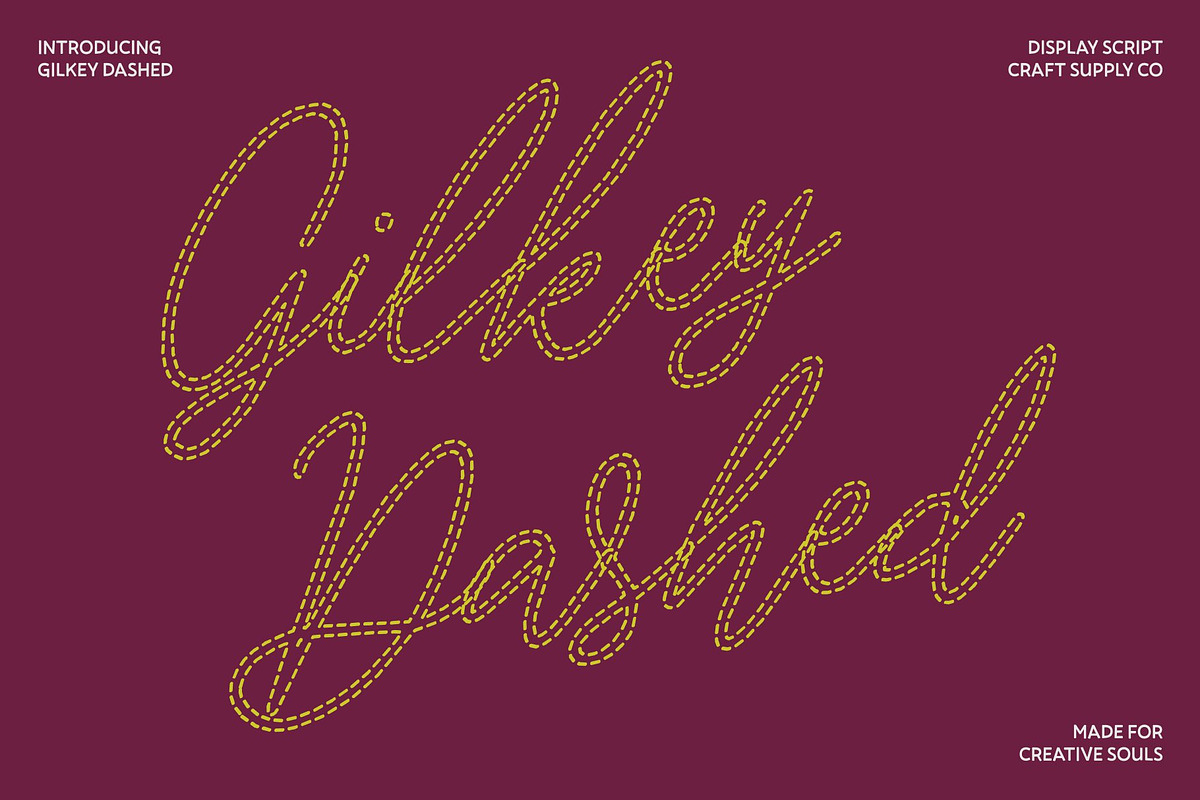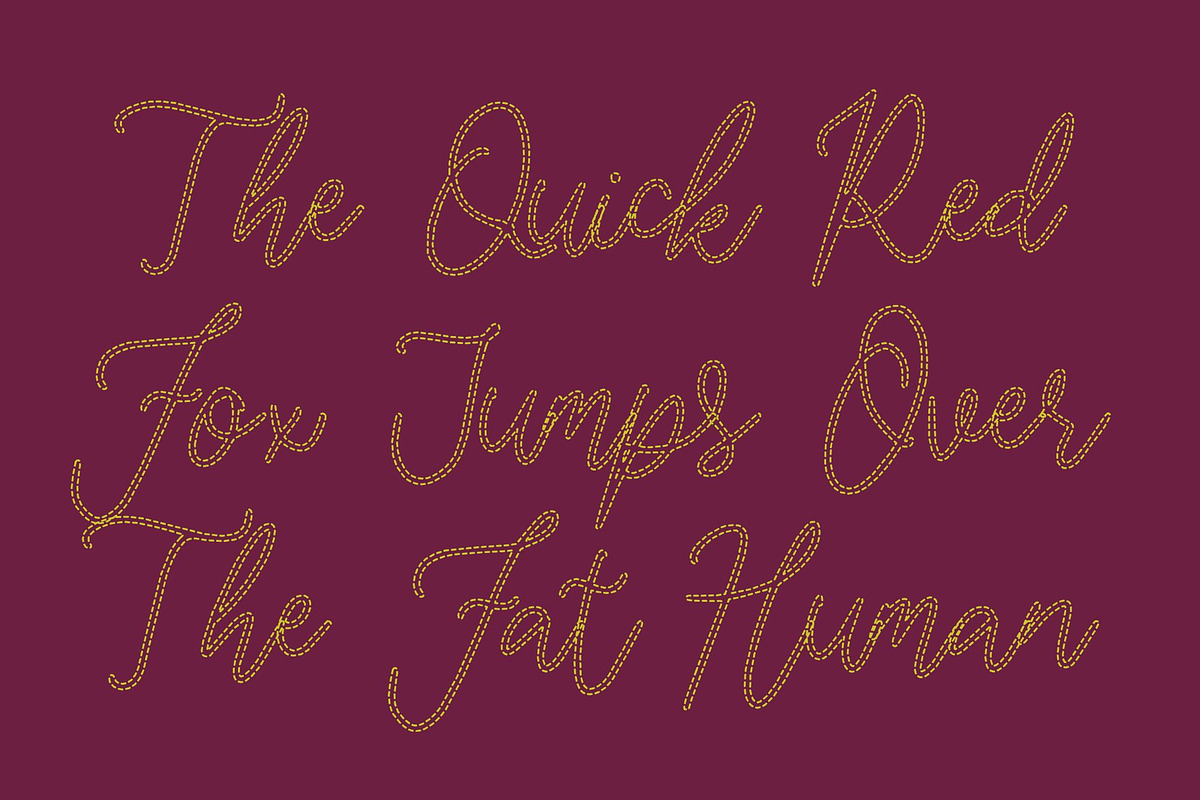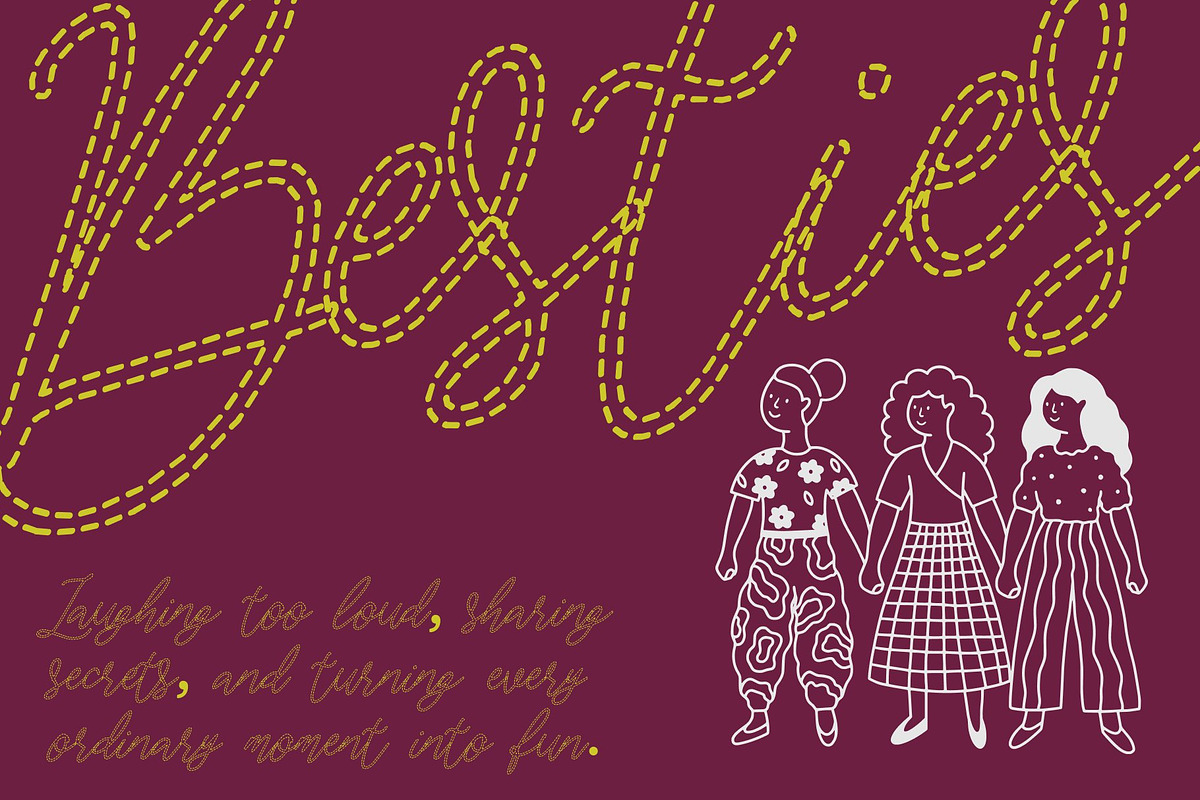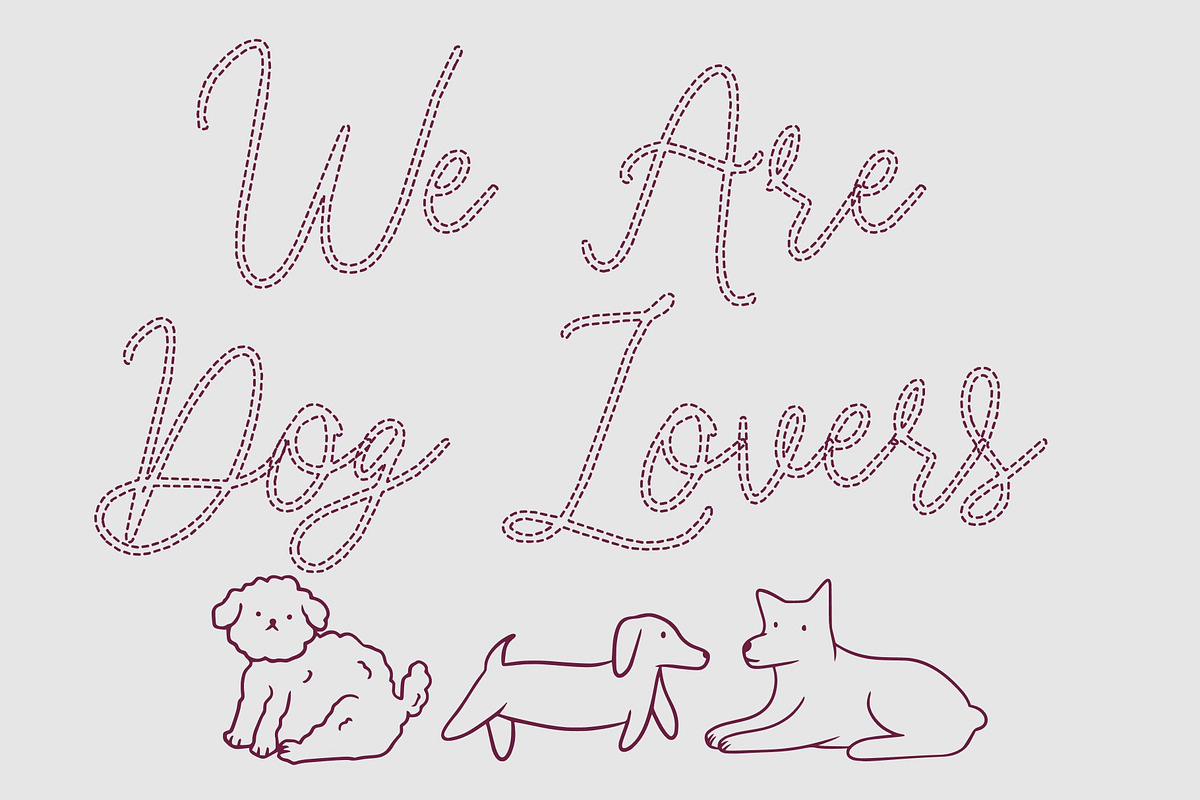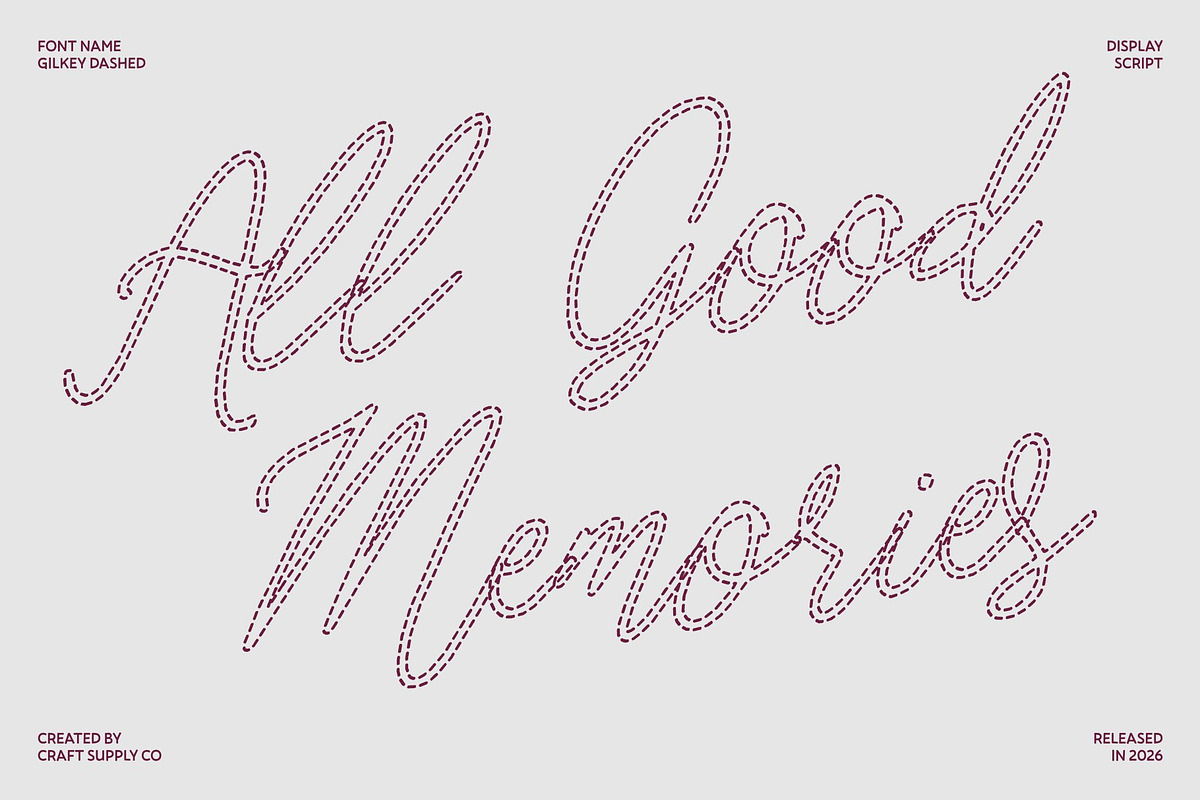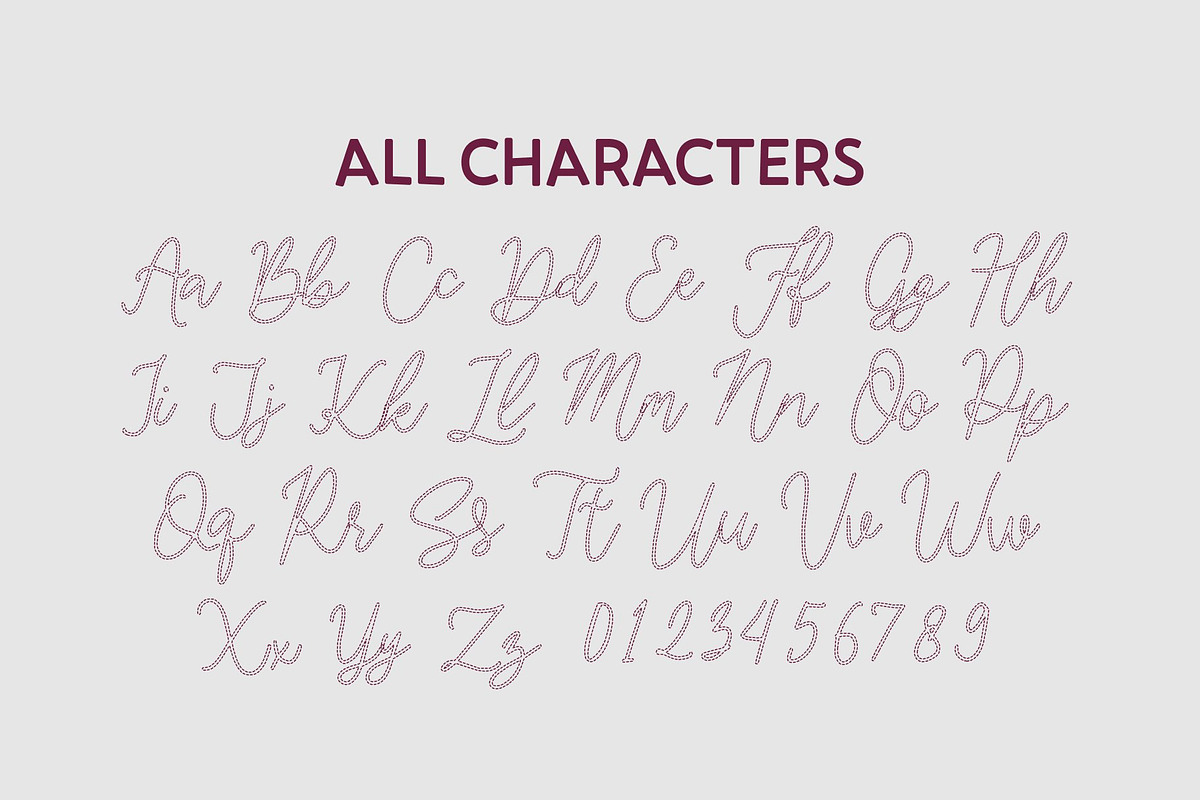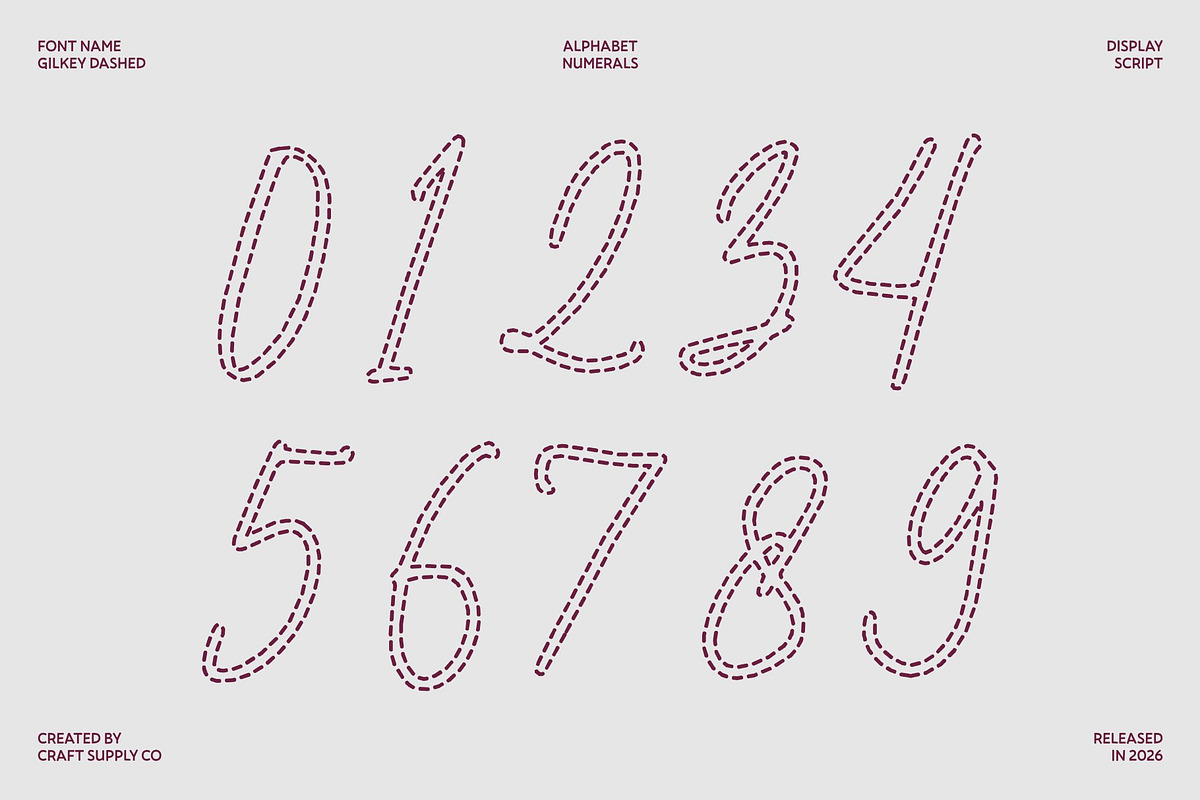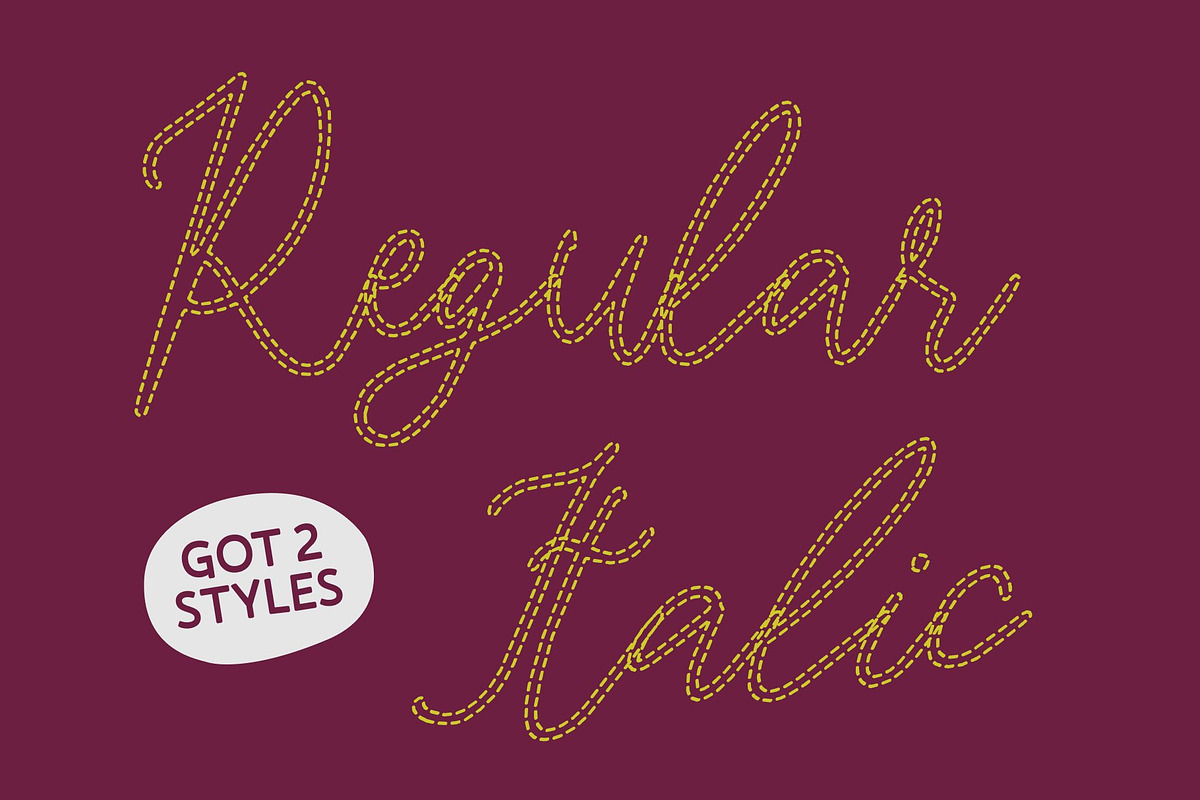
Gilkey Dashed
Gilkey Dashed – Elegant Monoline Script Font
Chic Monoline Script with Handwritten Grace This is an elegant monoline script font inspired by natural handwriting. Its smooth, consistent strokes create a refined and graceful flow that feels both modern and timeless. The dashed texture adds a subtle handcrafted touch, enhancing its stylish and sophisticated personality.
Upscale Style for Fashion and Modern Brands Designed to feel polished and chic, this font works beautifully for fashion labels, e-commerce brands, trend blogs, wedding boutiques, and any business aiming for a luxurious and contemporary image. Its clean handwritten style conveys elegance while remaining approachable and stylish.
Versatile for Creative and Editorial Use This font adapts effortlessly across a wide range of design needs, including logos, greeting cards, quotes, posters, branding, name cards, stationery, blog headers, and editorial titles. It pairs especially well with watercolor themes, hand-drawn visuals, craft projects, and DIY designs.
Perfect for Stylish Typography Projects From book covers and envelopes to art quotes and modern branding, Gilkey Dashed adds a pretty, trendy, and polished finish to every project. Its elegant handwritten charm ensures your designs feel fashionable, creative, and beautifully refined.
Gilkey Dashed Regular
Gilkey Dashed Italic